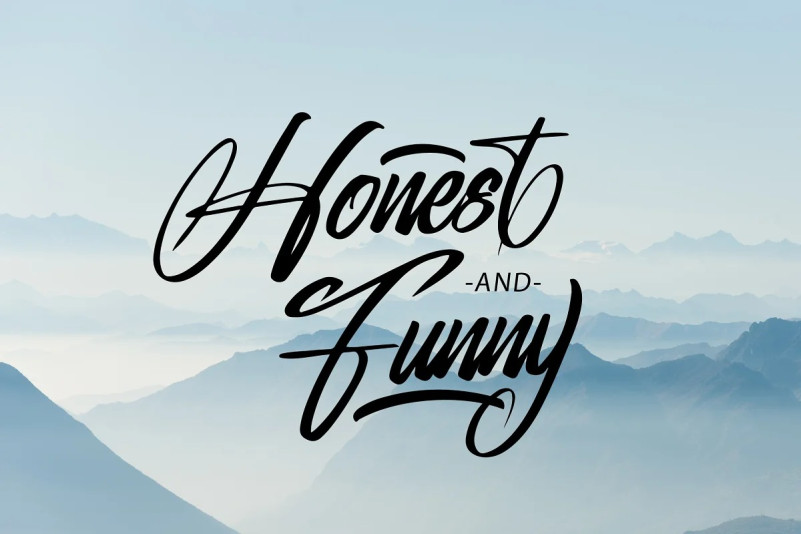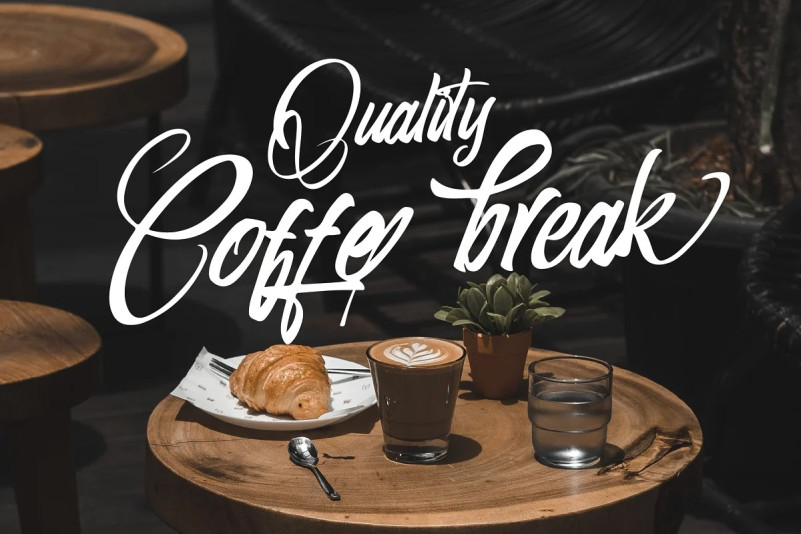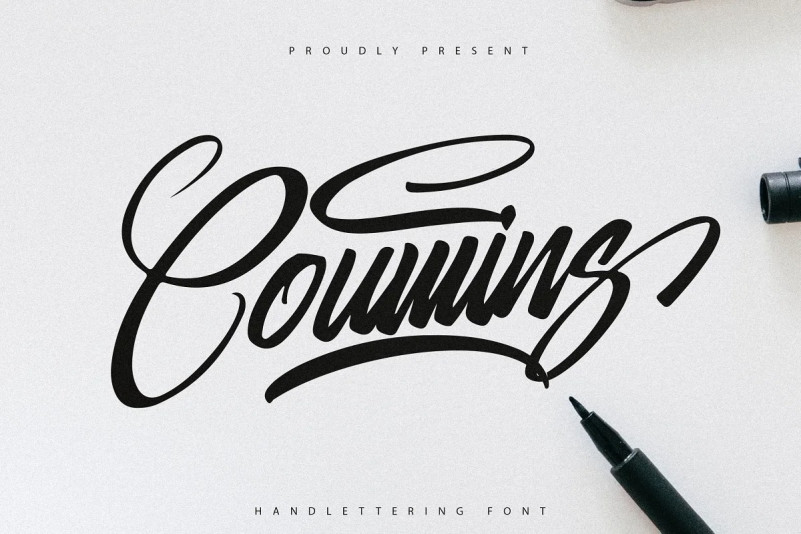
Coumins Font
Coumins Display Font has soft, elegant brushstrokes, with typography that looks like handwriting. The brushstrokes appear to be produced by fluid, skillful hand movements, giving the font an artistic and handcrafted feel. Medium to large typography sizes will display brush stroke details clearly. This lettering font is perfect for designs that require a personal and organic touch.
Coumins is supported with additional characters that have Alternate forms and swashes that will help you achieve beautiful styles with your own creations.